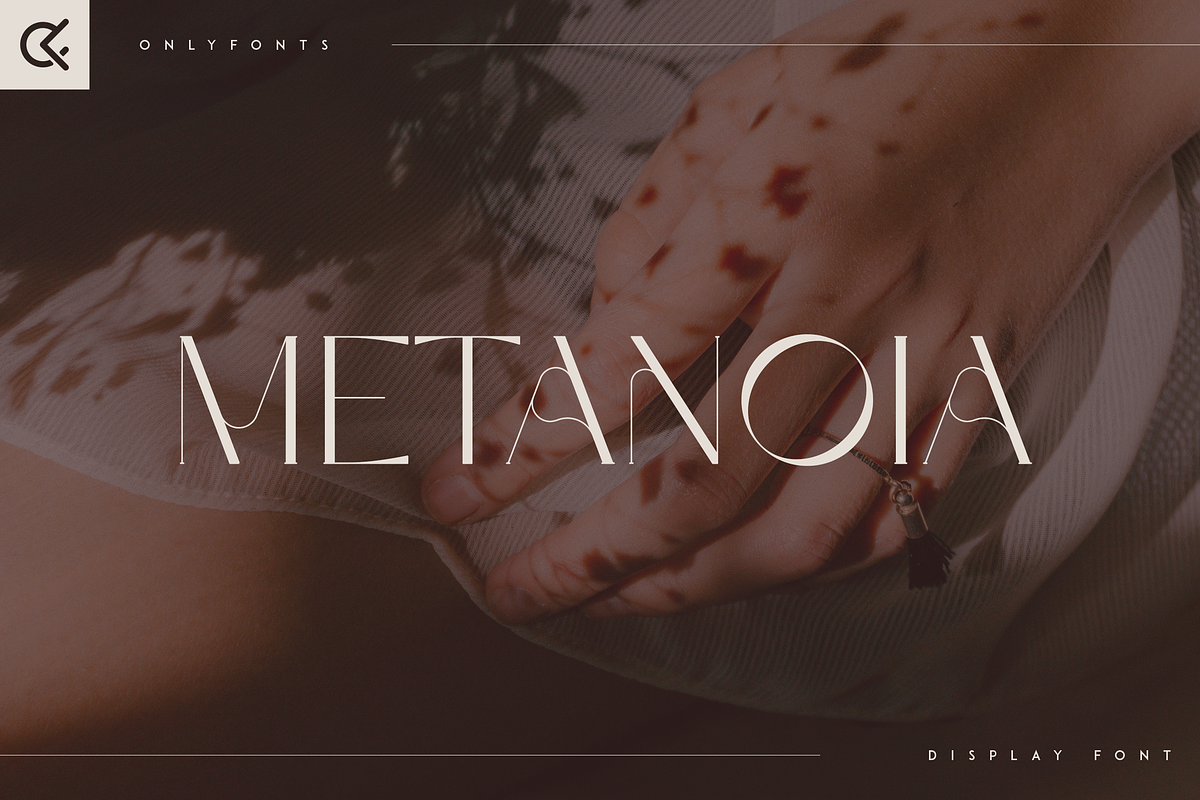
Metanoia - Display Font Free Download
Metanoia – Display Font Free Download is a striking and contemporary typeface built to stand out in bold visual compositions. Please note: you must purchase this font for commercial use, but you can test it through a free download. With its sharp edges, geometric balance, and unique letterforms, Metanoia is perfect for posters, branding, editorial headlines, album covers, and high-impact social media graphics.
Designed for creatives who aren’t afraid to make a statement, this display font combines modernity with artistic edge. Whether you're crafting a cutting-edge logo or a sleek campaign title, Metanoia – Display Font Free Download delivers clarity, strength, and style. It’s fully compatible with Adobe Illustrator, Photoshop, Canva, and other major design platforms. Download it today for personal use and let Metanoia bring bold transformation to your typography.